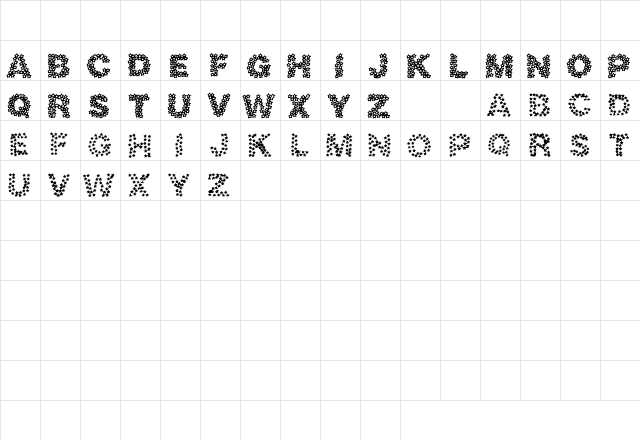
Twinkle Regular
Design Context for Twinkle Typeface
Twinkle is a composed and adaptable typeface that performs quietly and consistently across a wide range of design contexts.